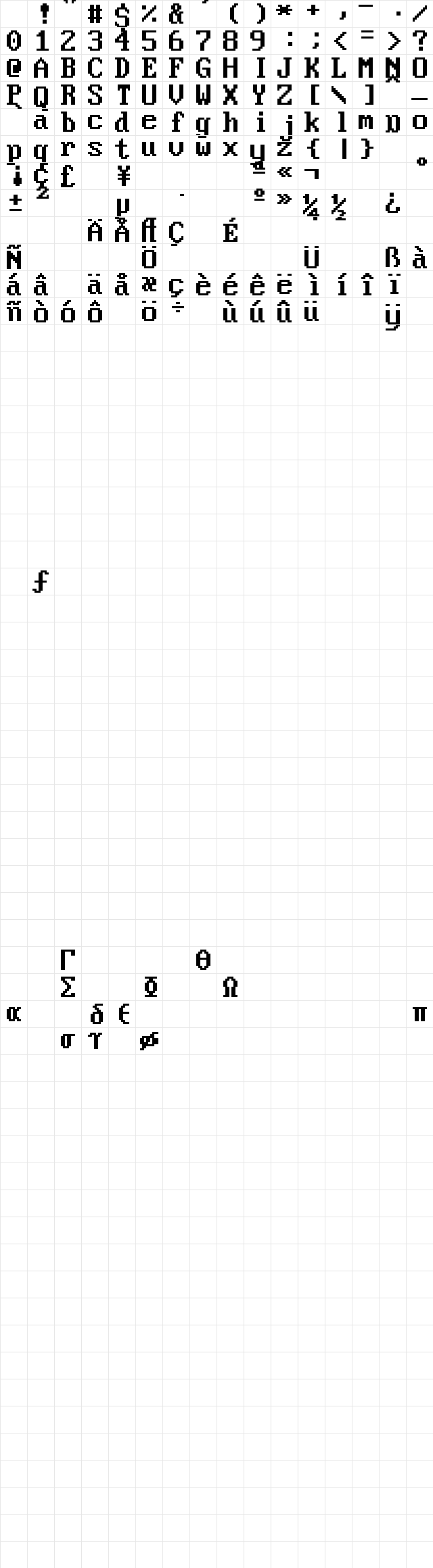
Complete Perfect DOS VGA 437 Win Regular glyph index. Displaying only characters natively supported by Perfect DOS VGA 437 Win Regular font.
Perfect DOS VGA 437 Win is a composed and adaptable typeface that performs quietly and consistently across a wide range of design contexts.